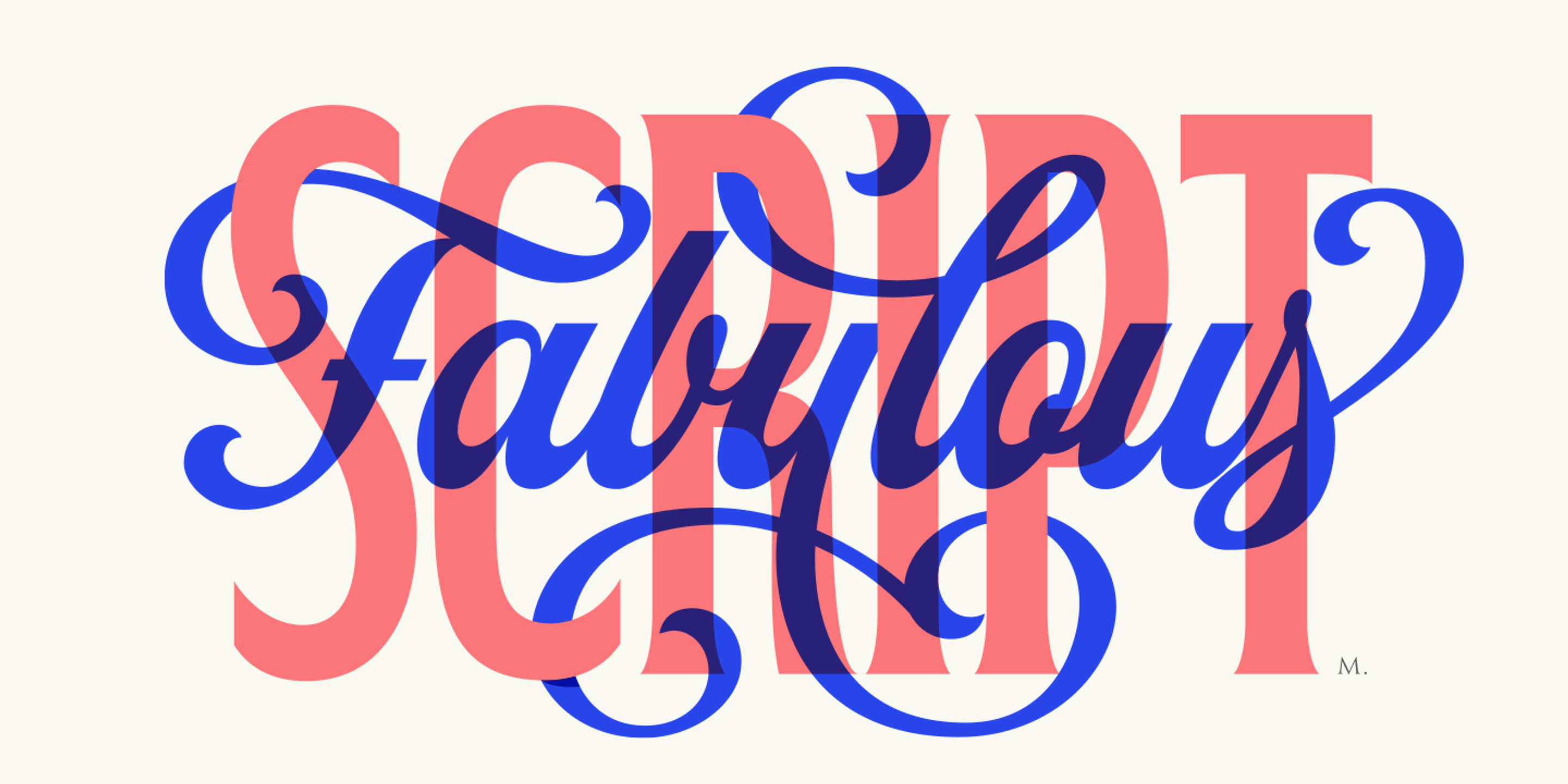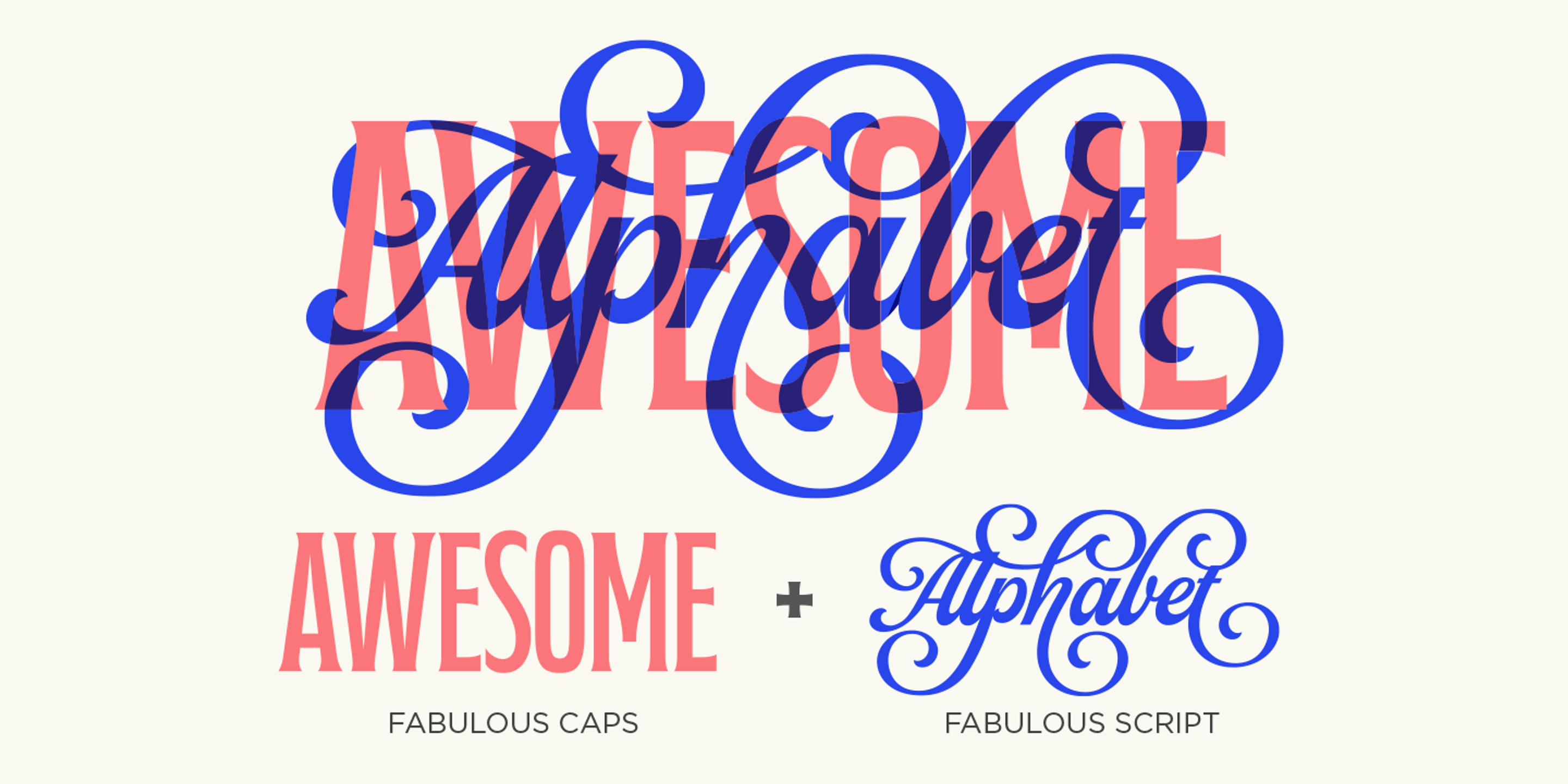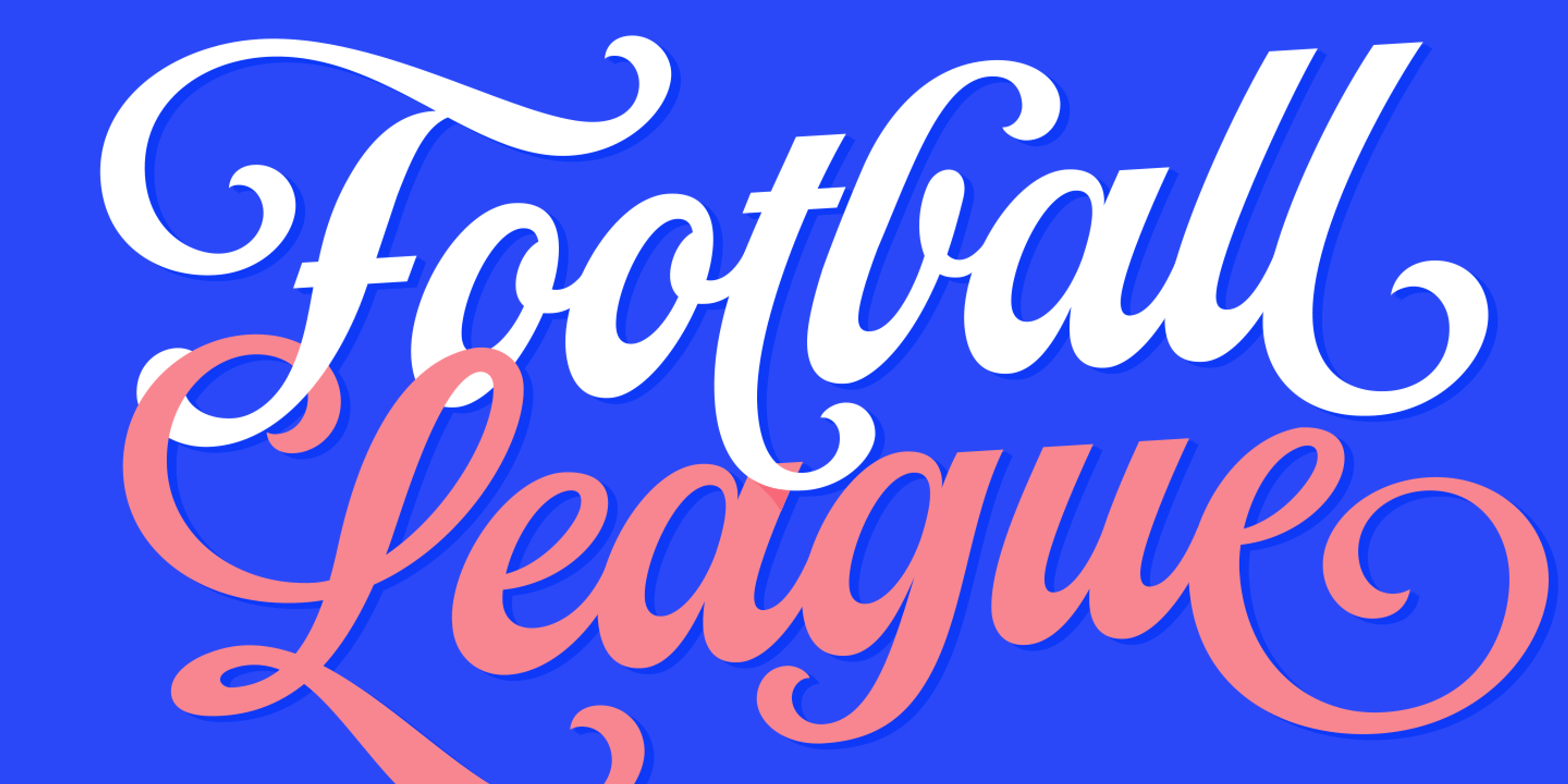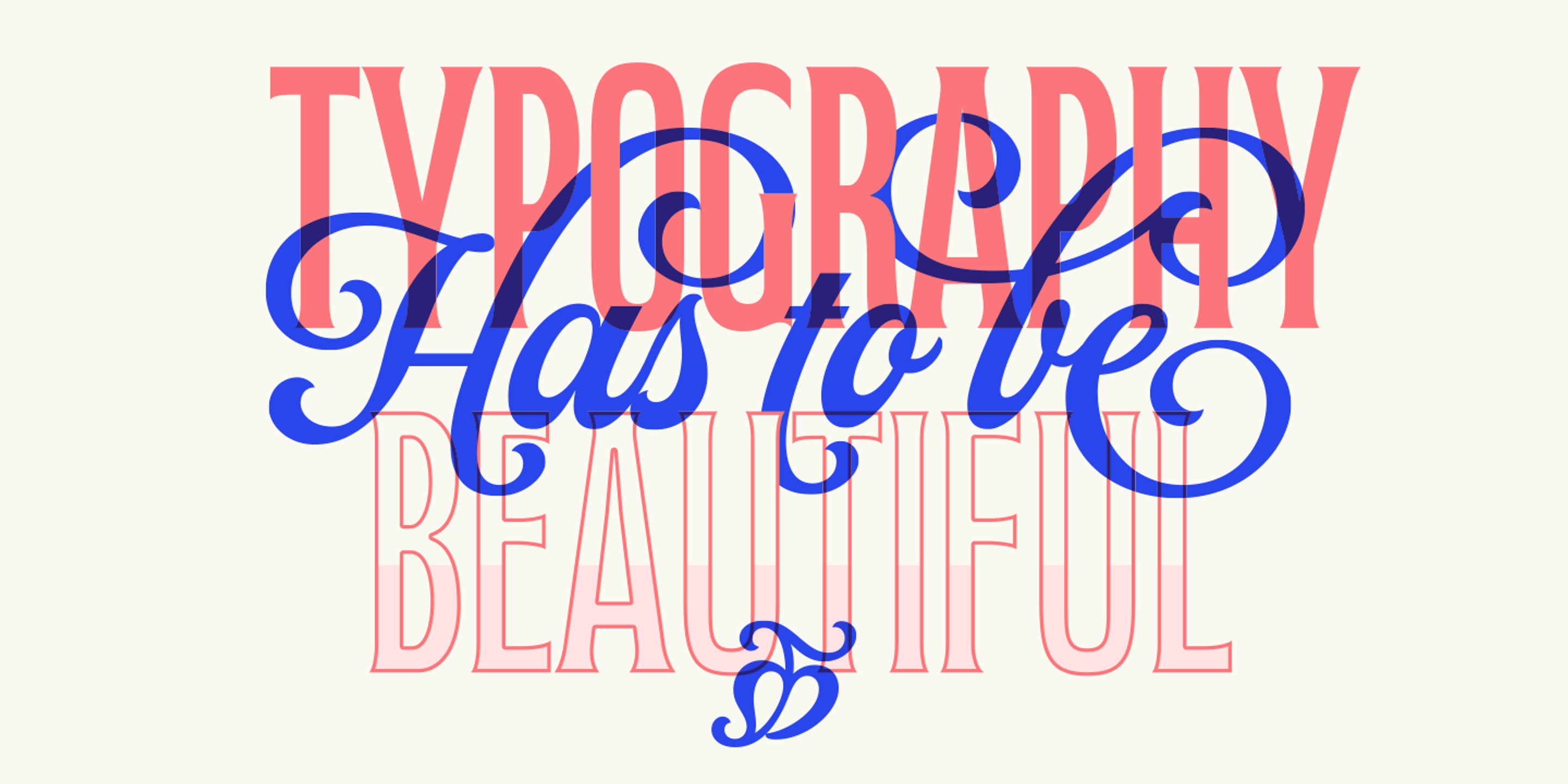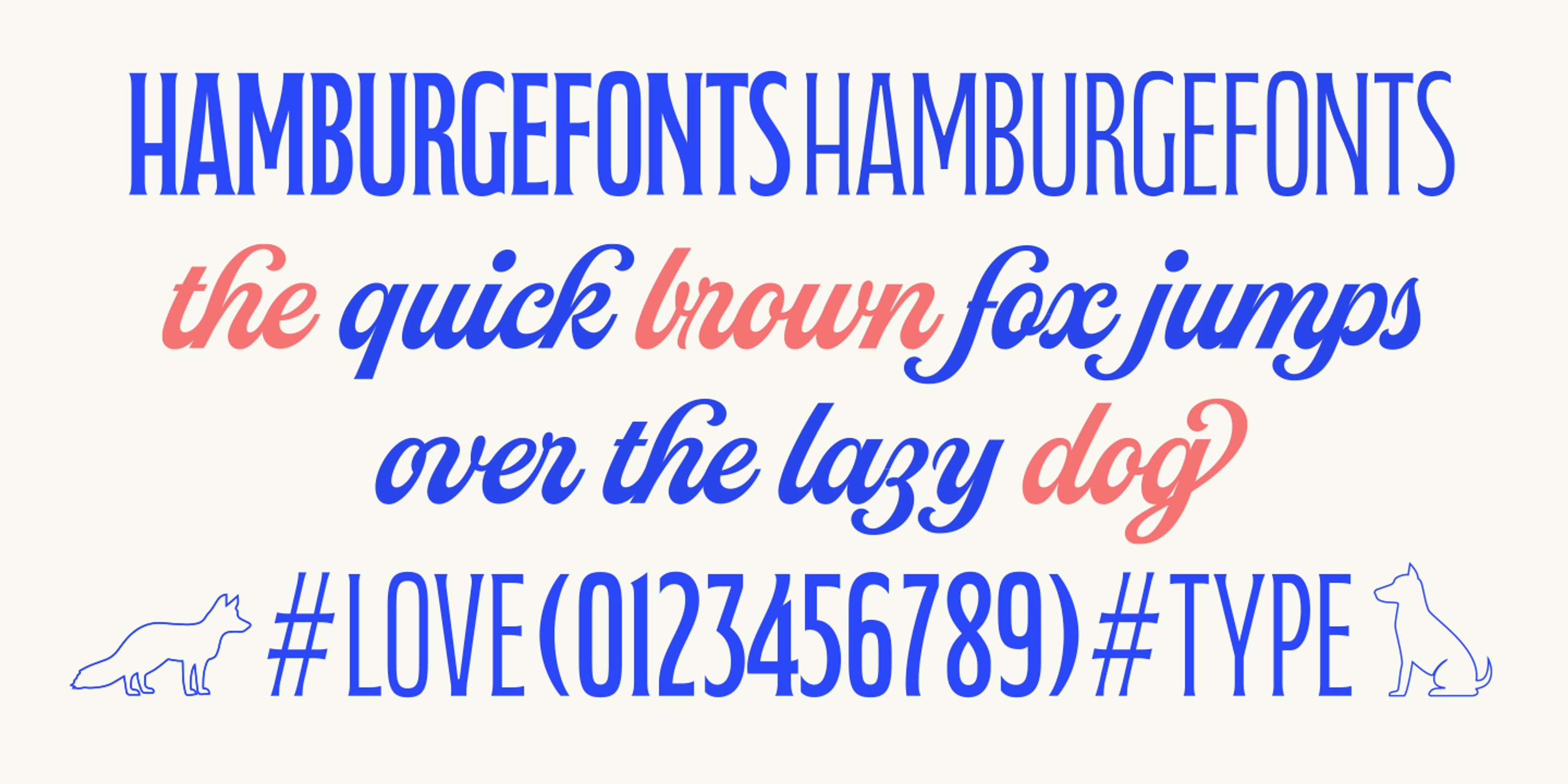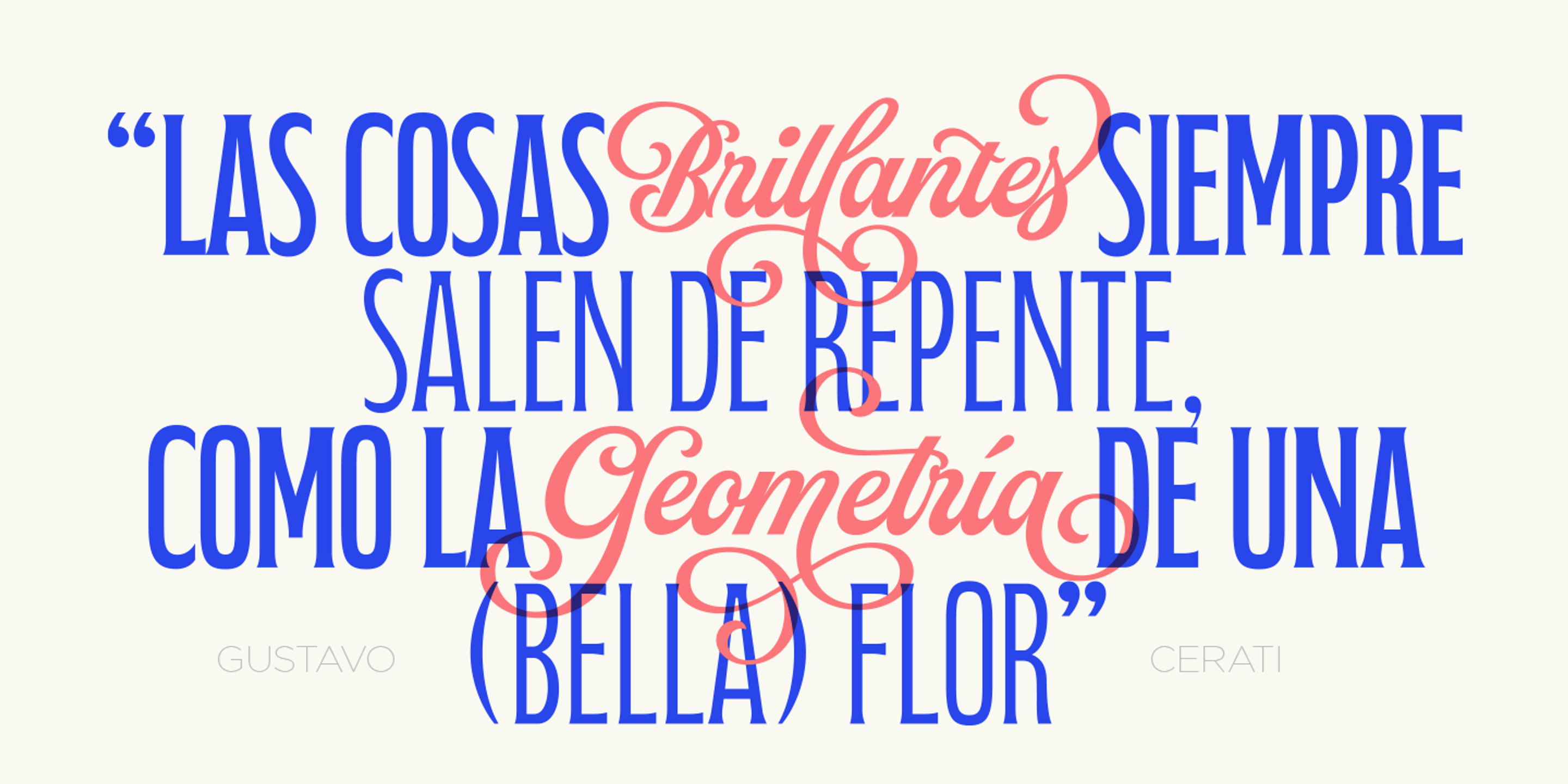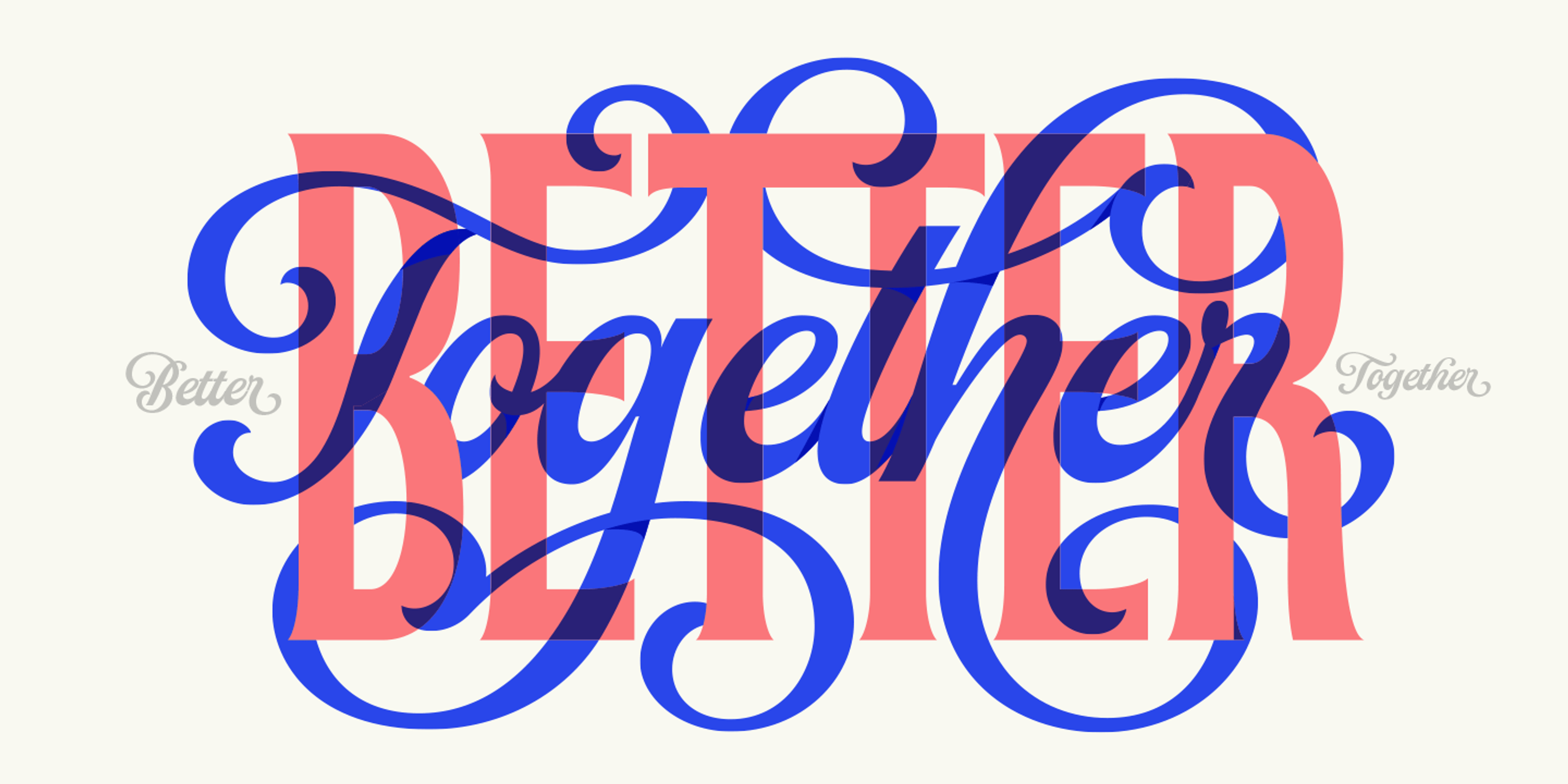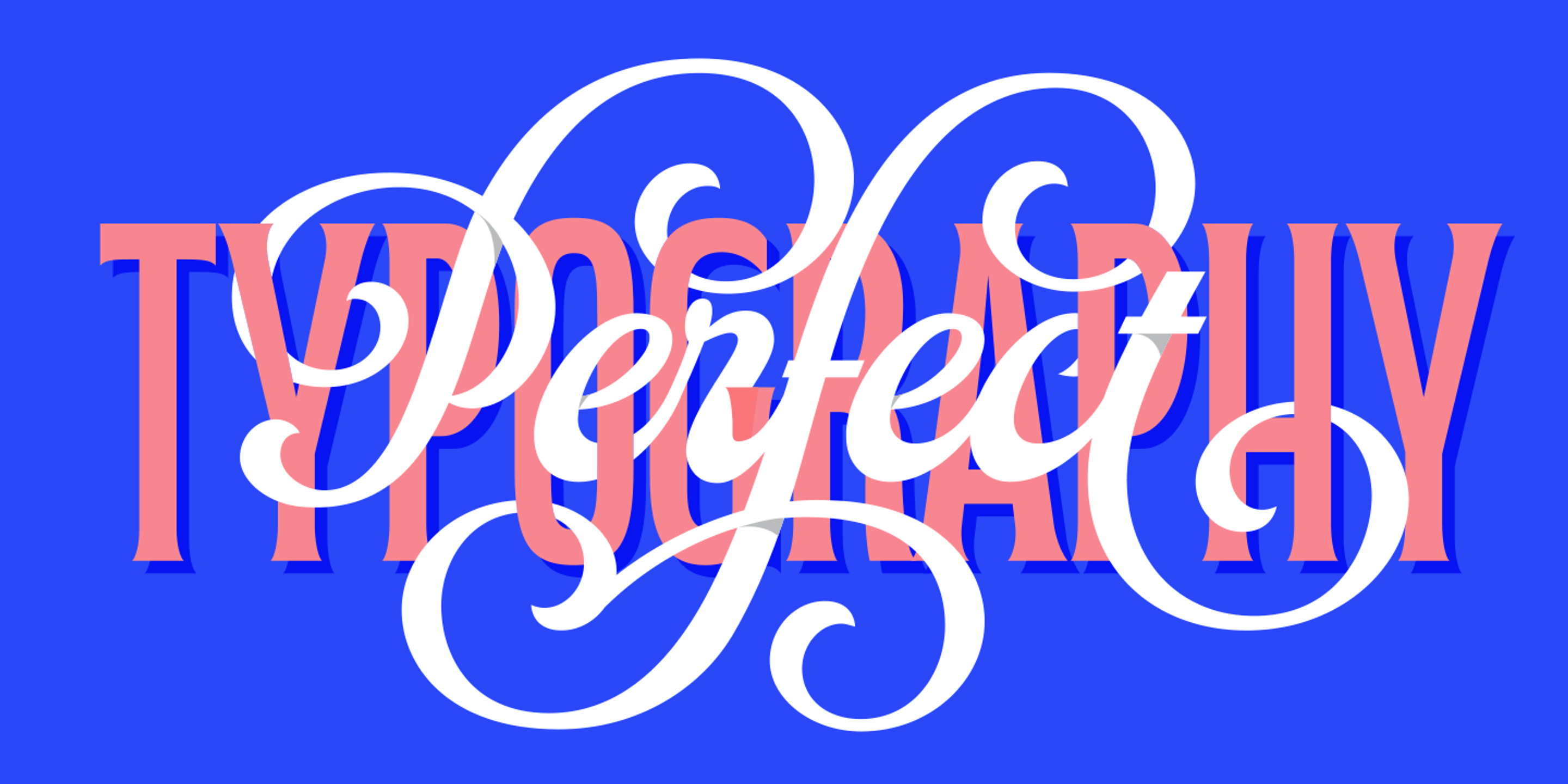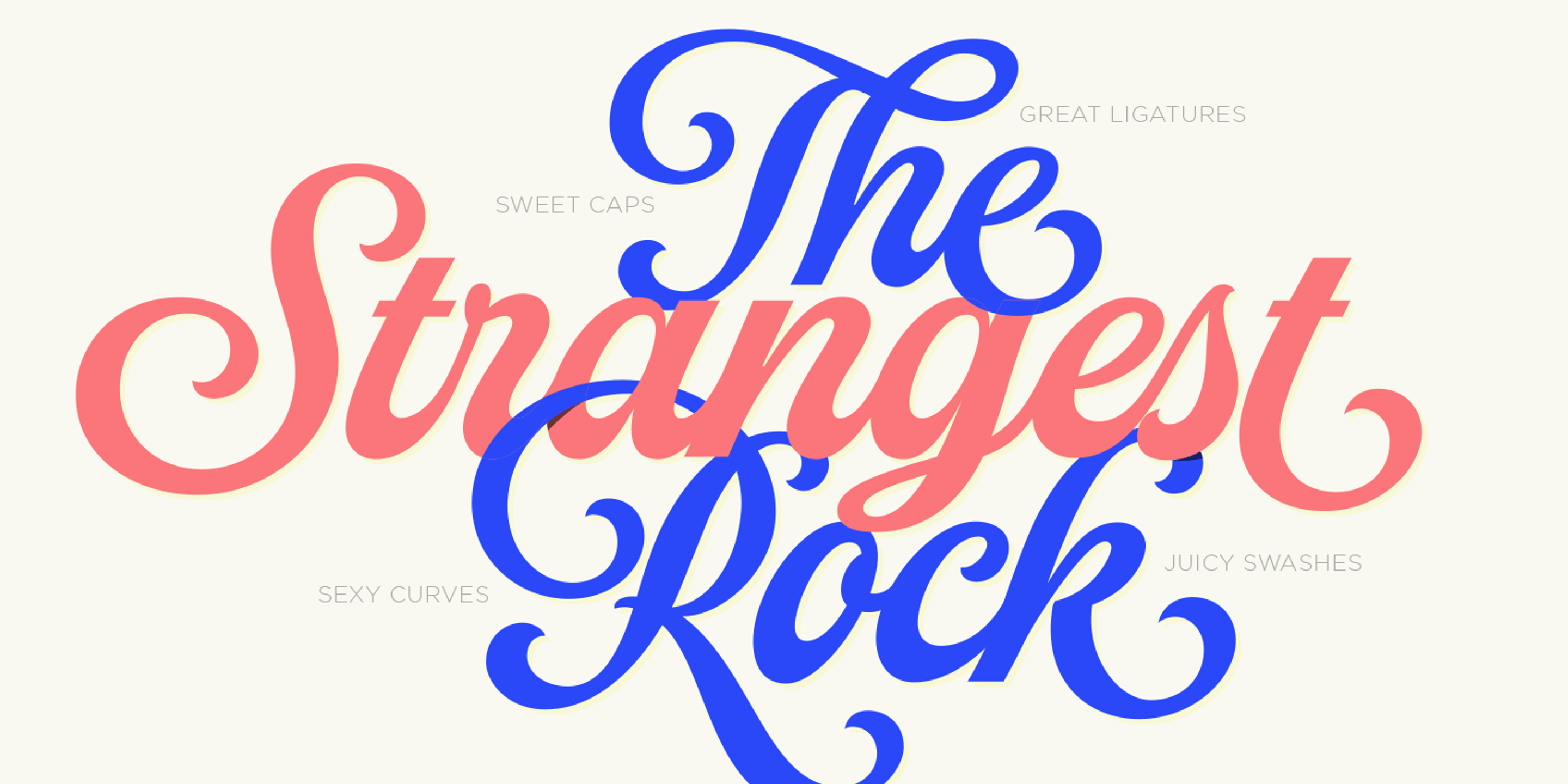
Fabiola Script
Fabiola Capitals Thin
Fabiola Capitals Regular
About the font
Fabiola Details
Fabiola is bold, sweet, and full of flair — a script and caps duo made for the limelight. Designed to work as the perfect pairing, the swirling Script style can wrap gracefully around the sturdy, stylish Caps, creating dynamic lettering-like compositions. You can also use them separately to add contrast! Whether in use for packaging, wedding invites, social media graphics, or boutique branding, Fabiola brings charm, versatility, and a fabulous dose of personality to every project.
OpenType Features
- Common Ligatures
- Discretionary Ligatures
- Fractions
- Historical Ligatures
- Ornaments
- Stylistic Alternates
- Stylistic Sets
- Swashes